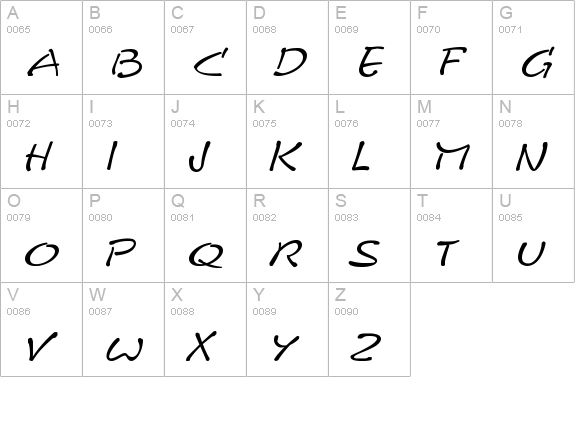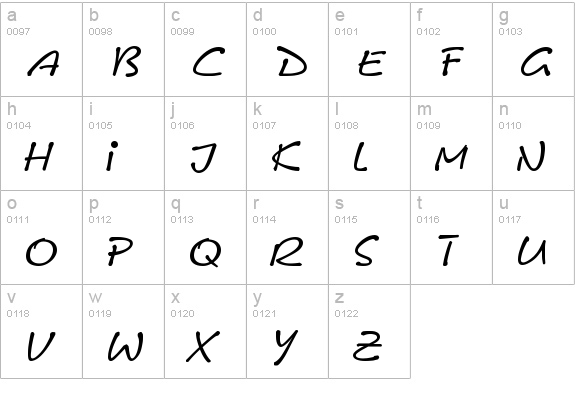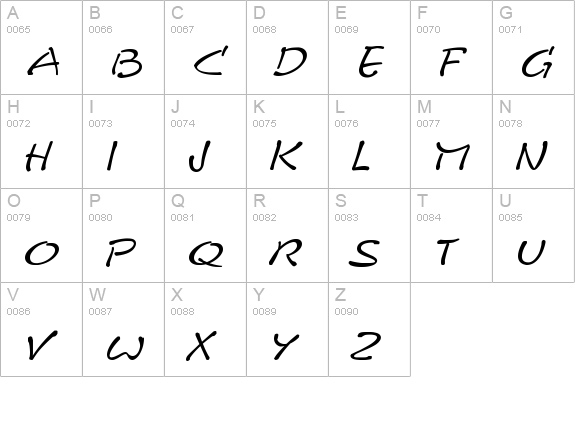
CalvinItal Regular Font Details
CalvinItal Regular is the standard, neutral variant in the CalvinItal typeface family \xE2\x80\x94 well suited to general body text, paragraphs, and standard typographic work.
CalvinItal Regular font is a stylish and modern typeface that exudes elegance and sophistication. Its sleek and slanted design adds a touch of flair to any project, making it perfect for both headings and body text. This versatile font is ideal for a wide range of design projects, from branding to editorial design. The best part? CalvinItal Regular font is completely free to download at FontsMarket.com. With its seamless curves and clean lines, this font is sure to elevate your designs and make a lasting impression. Don't miss out on the opportunity to add this beautiful typeface to your collection today!